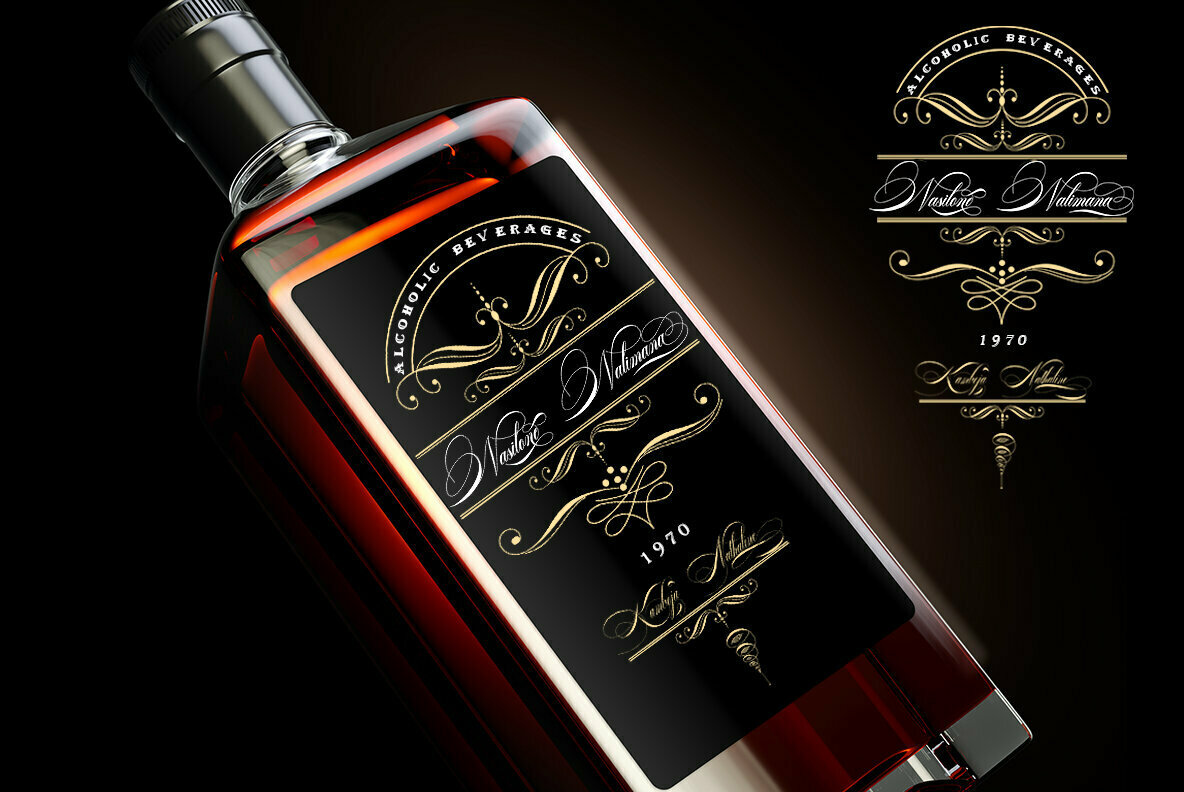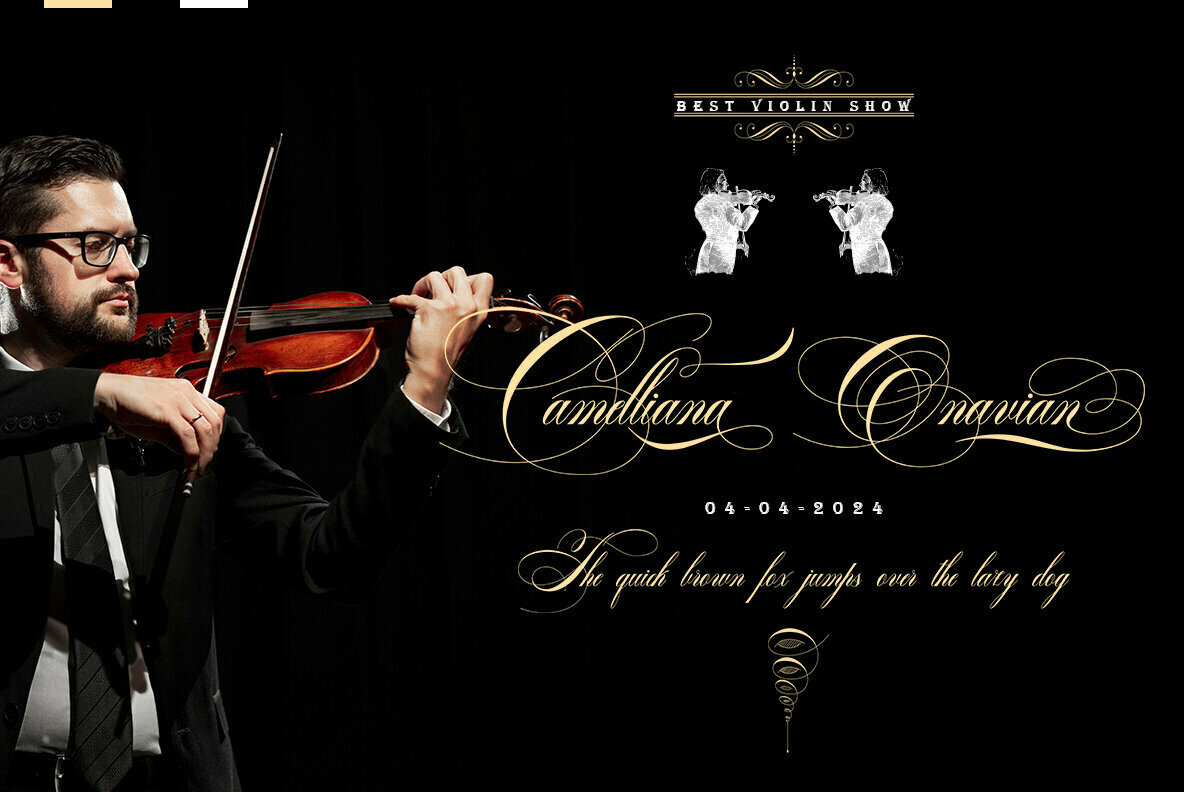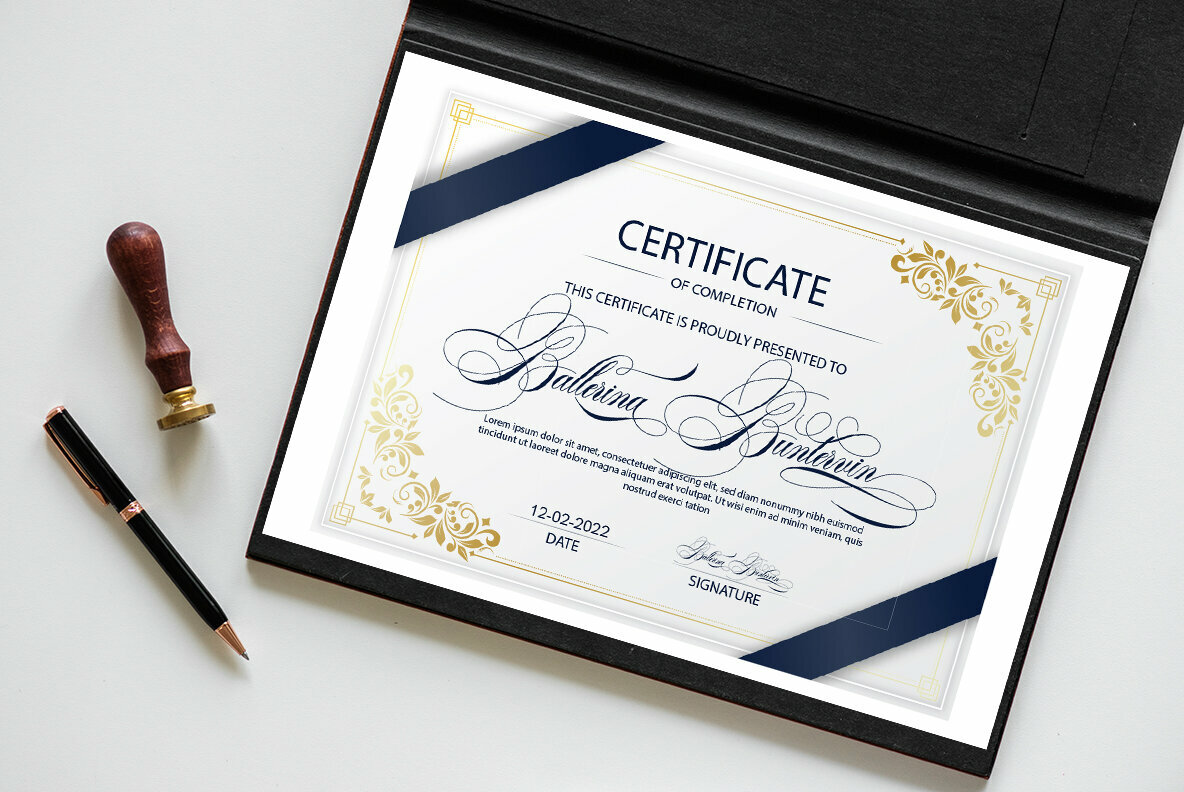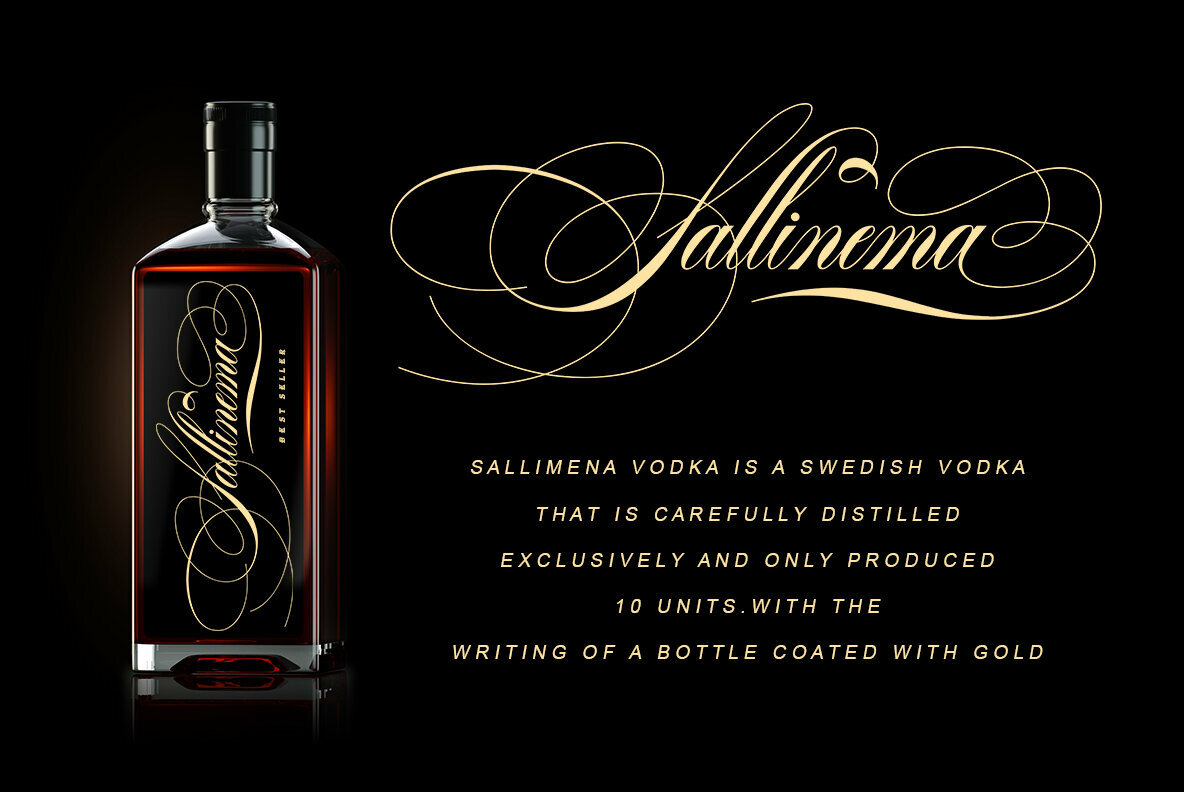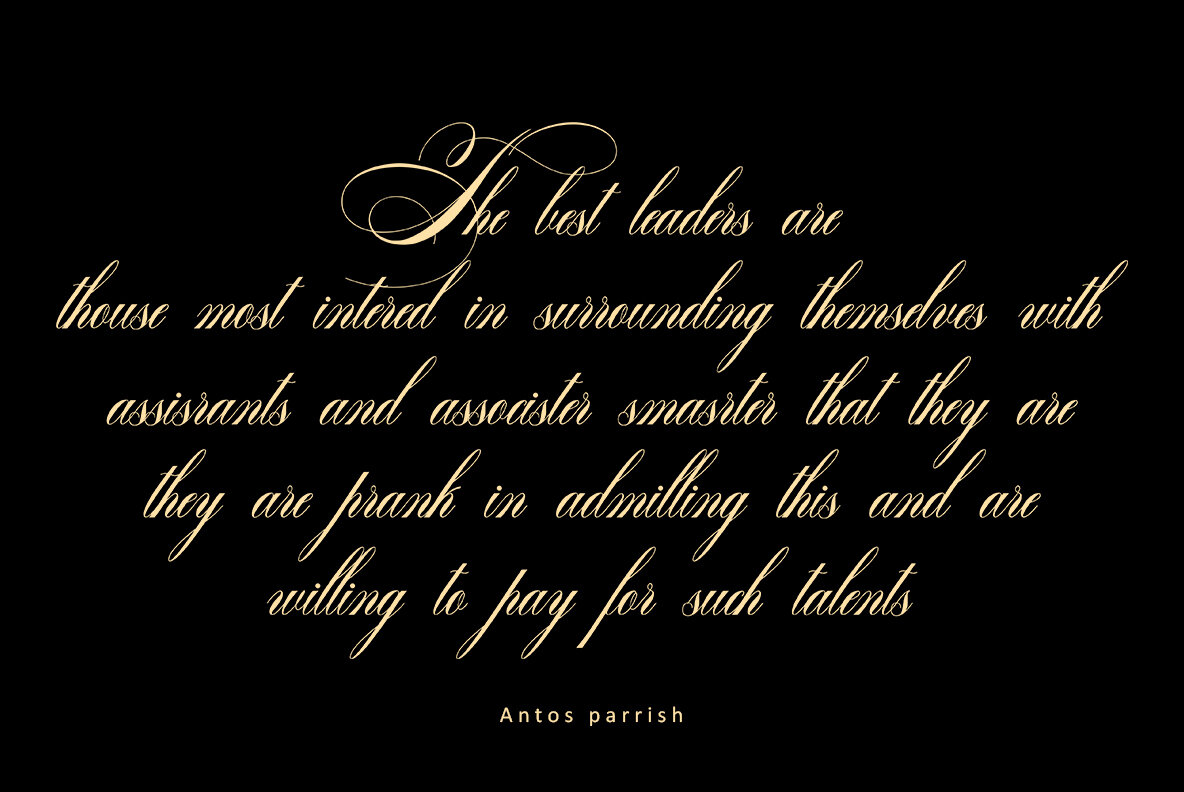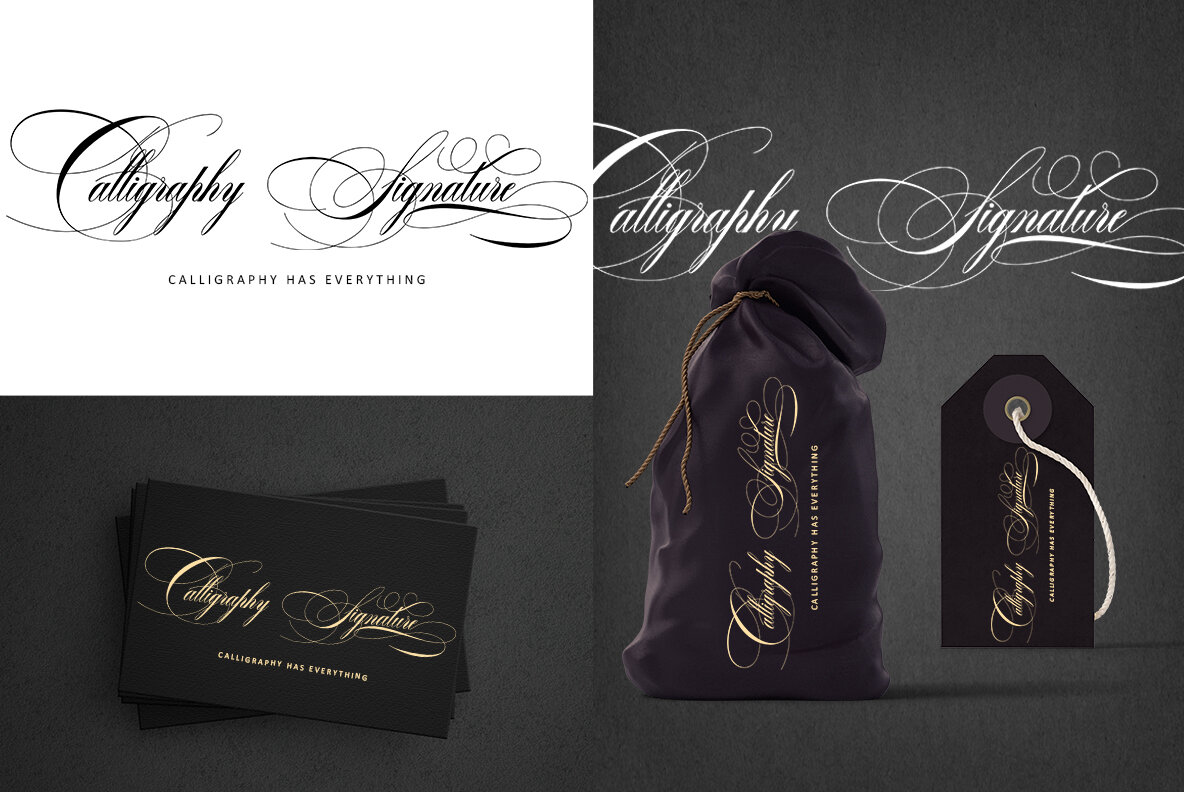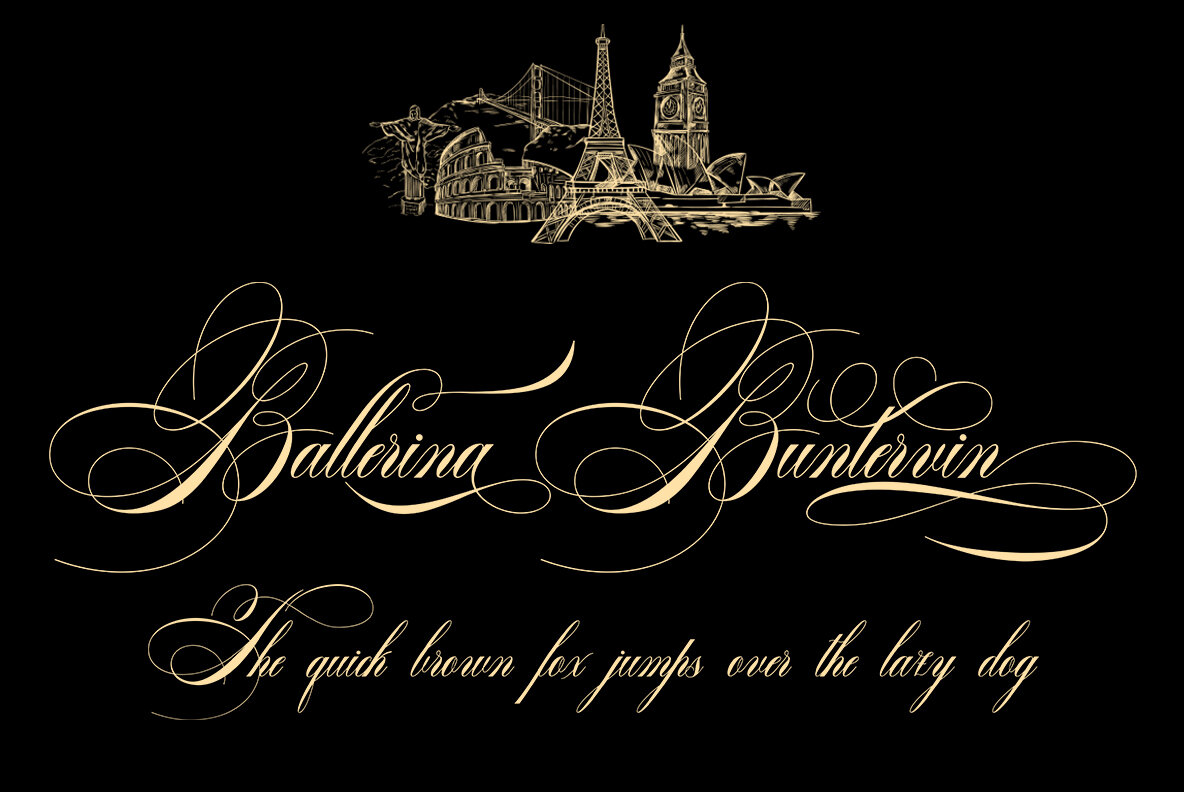
Benalline Signature Font
Benalline Signature offers an exquisite choice for those seeking a script font that captures attention with subtle sophistication. Famed designer M Irvan Syouqi S has crafted this piece to echo the delicate elegance of a handwritten note, making it ideal for personalized branding and creative projects where authenticity and warmth are desired. Ideal for invitations, stationery, and bespoke branding endeavors, this typeface offers a fluid and expressive aesthetic. Embrace creativity with Benalline Signature, an ideal choice for projects where a touch of elegance is required.Benalline Signature: A Script Font with Elegance